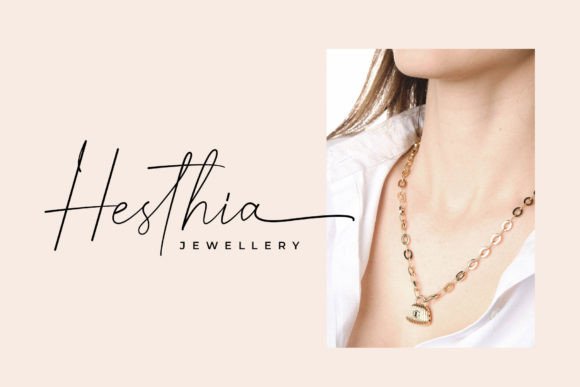
Romeo Handwritten Font
Romeo Handwritten is a professional-looking script font with modern vibes and luxurious accents, perfect for creating stunning readability and stylish text in general. This font looks feminine, girly, and catchy, and comes with beginning and ending swashes to make your design more beautiful. Romeo Handwritten is a great choice for watermarks, signatures, logos, album covers, magazines, business cards, and many other design projects.